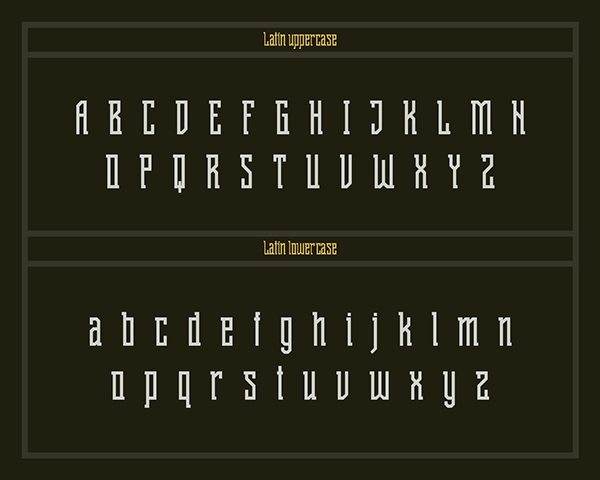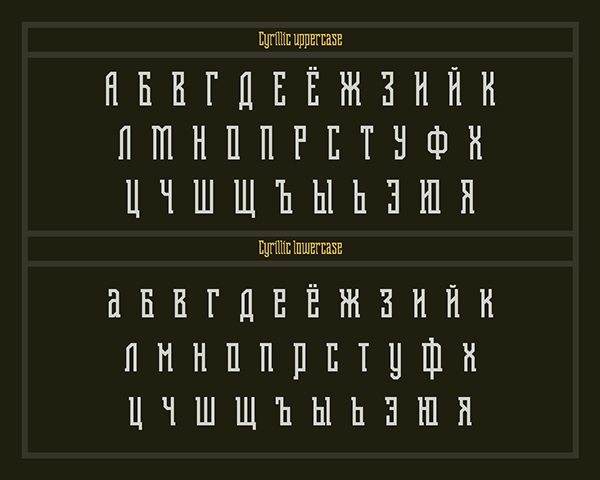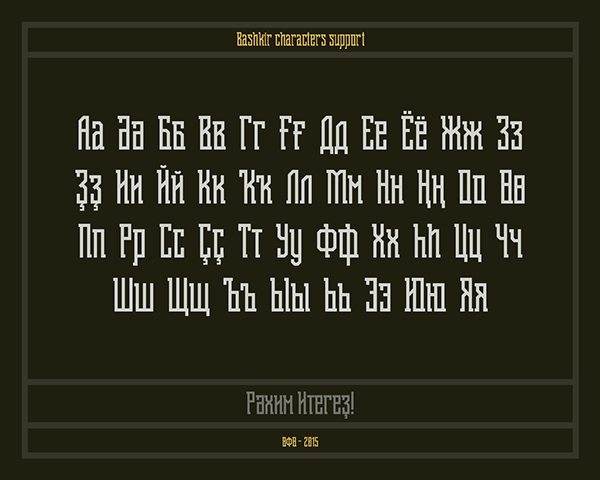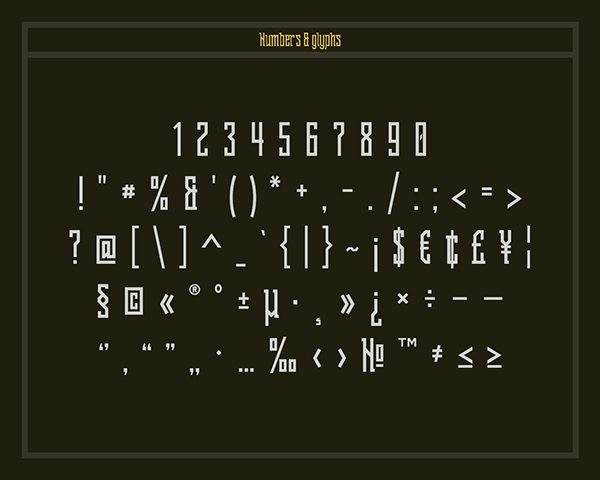
Shihan Font
The font is a free typeface created in April 2015 and inspired by Bashkir geometrical ornaments. This is a FREE typeface and it’s authorized to use it for commercial works. Shihan is delivered in OpenType format and support basic Latin, Cyrillic and Bashkir character set. Designed by Sergei Godovalov.